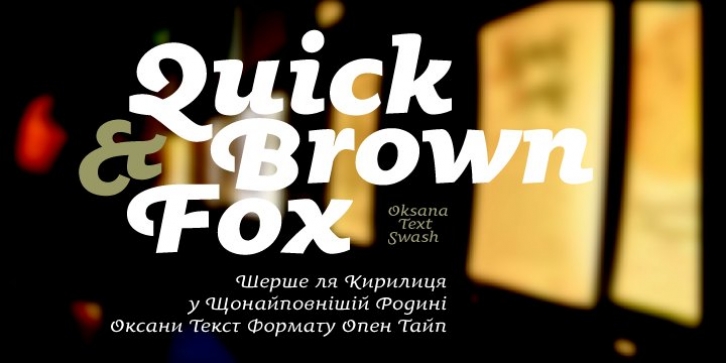
Oksana Text Swash downloadDesigner: Andrij Shevchenko
Publisher: AndrijType
Oksana Text Swash has swashed initials and ampersand for Oksana Text italics in six weights from Thin to Heavy.